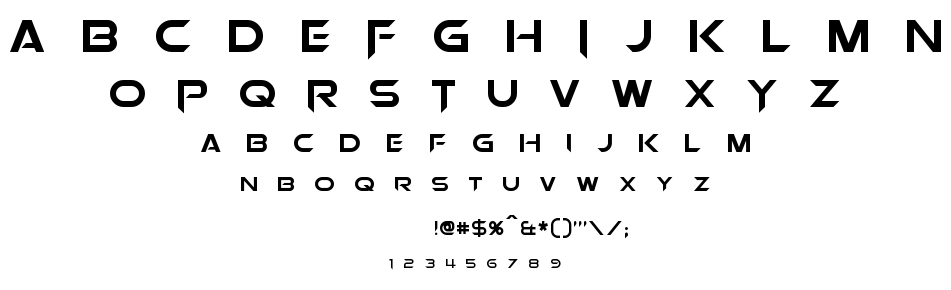
Orion Pax
Orion Pax Font
This is a techno-style font based on the “Robots in Disguise” logo from Hasbro’s 2012 Transformers toyline. This font includes accented characters, the Euro, and other European glyphs.